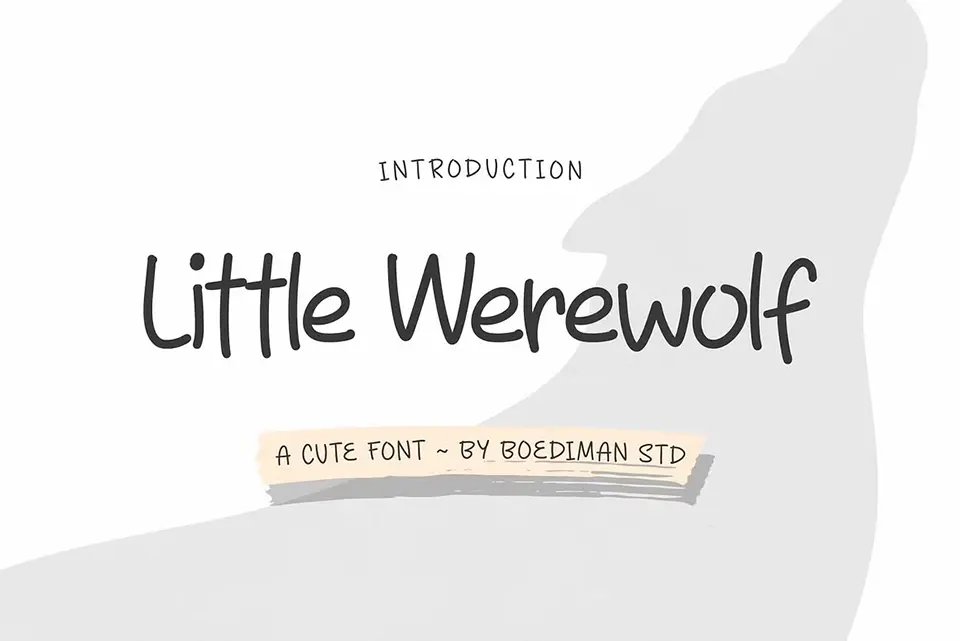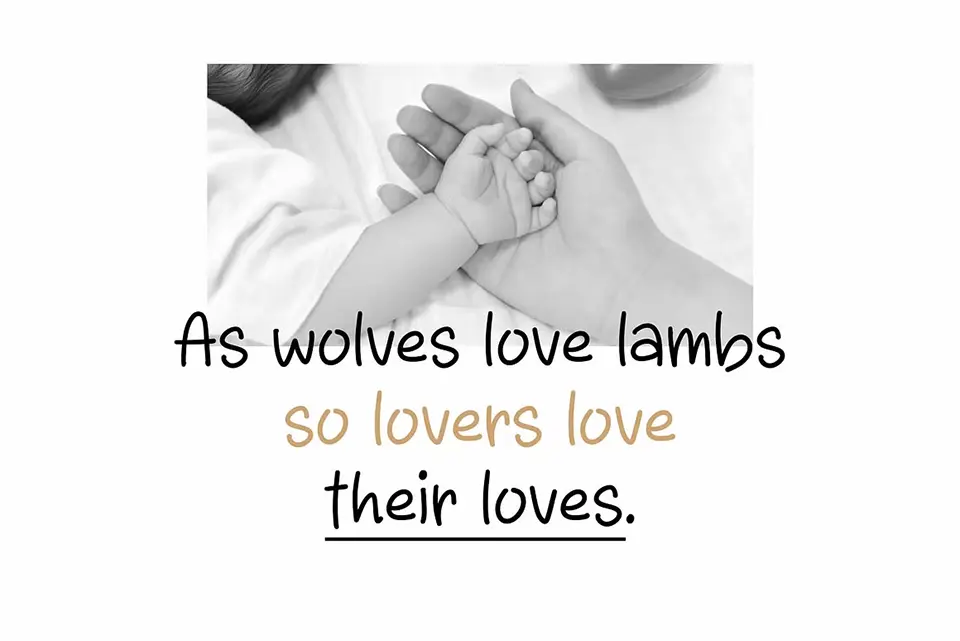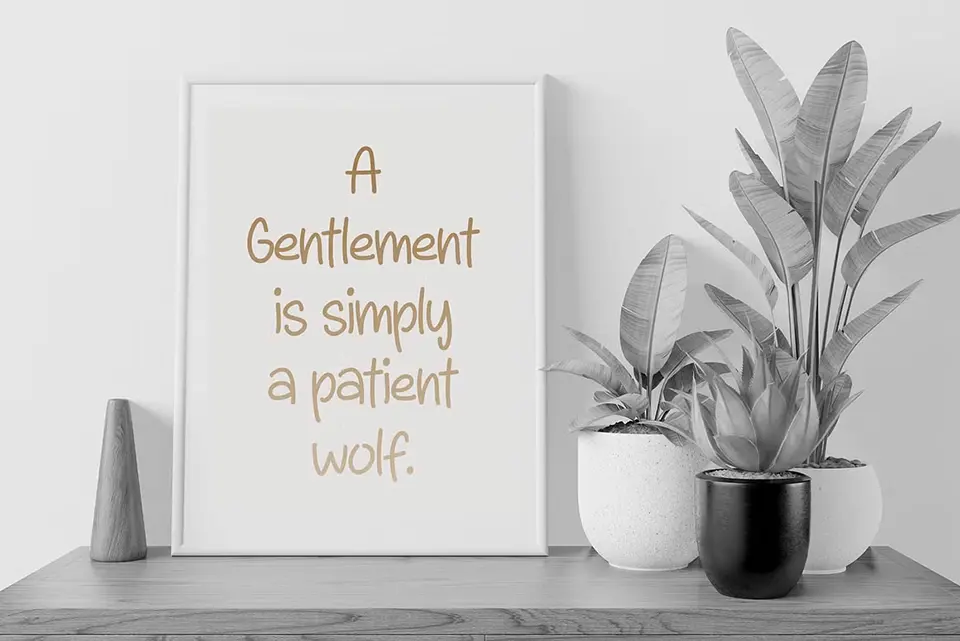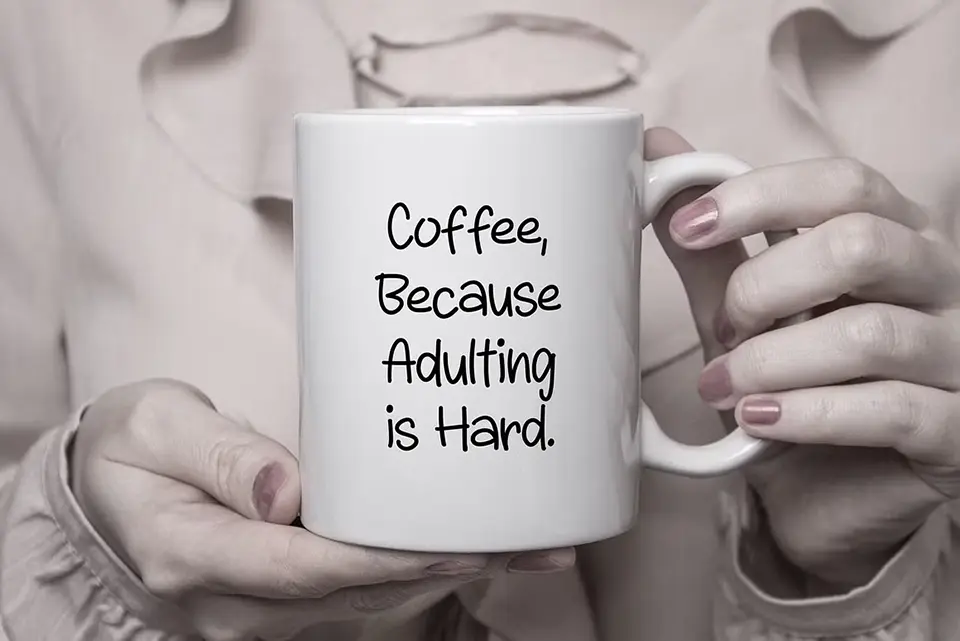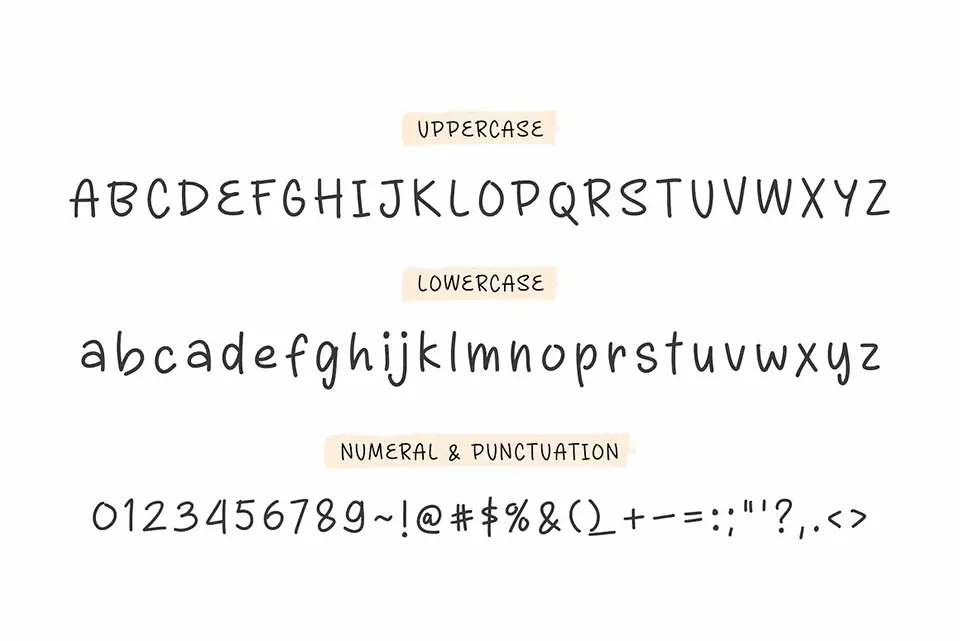
Little Werewolf Font
Little Werewolf is a charming handwritten font designed by Ade Budiman, offering a playful and whimsical aesthetic perfect for creative projects. Its semi-light weight and casual style evoke a natural, hand-drawn feel, making it ideal for invitations, social media graphics, logos, branding materials, and greeting cards. The font includes uppercase and lowercase letters, numerals, and basic punctuation, providing versatility for both headlines and decorative text. While free for personal use, commercial licenses are available for broader applications like packaging, apparel, and advertising. With its unique blend of character and adaptability, Little Werewolf adds a touch of warmth and originality to designs seeking an approachable, artistic vibe.